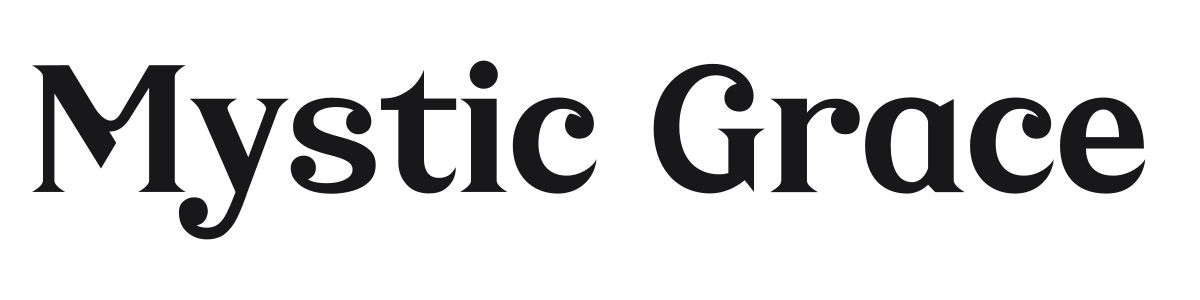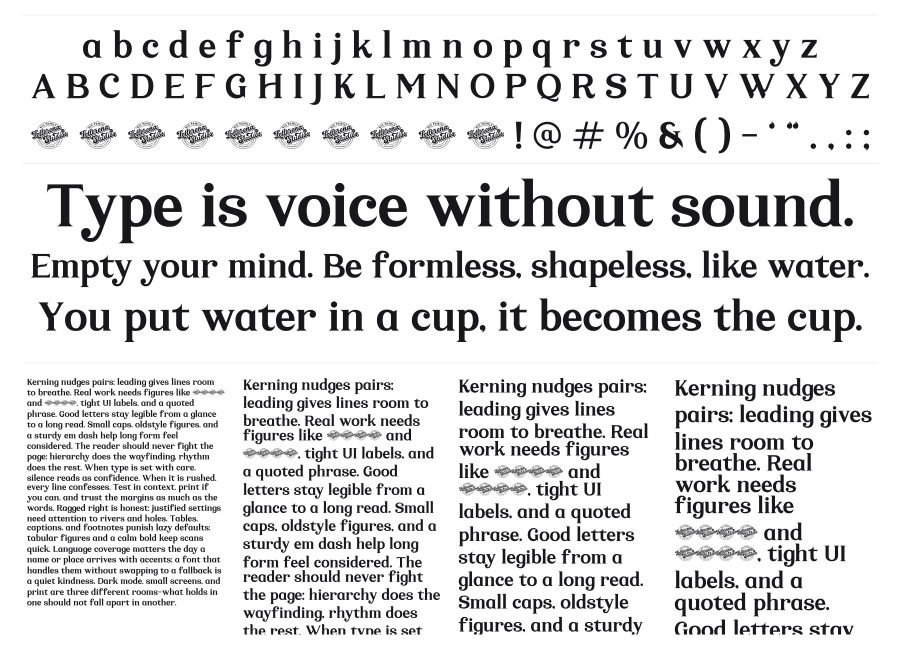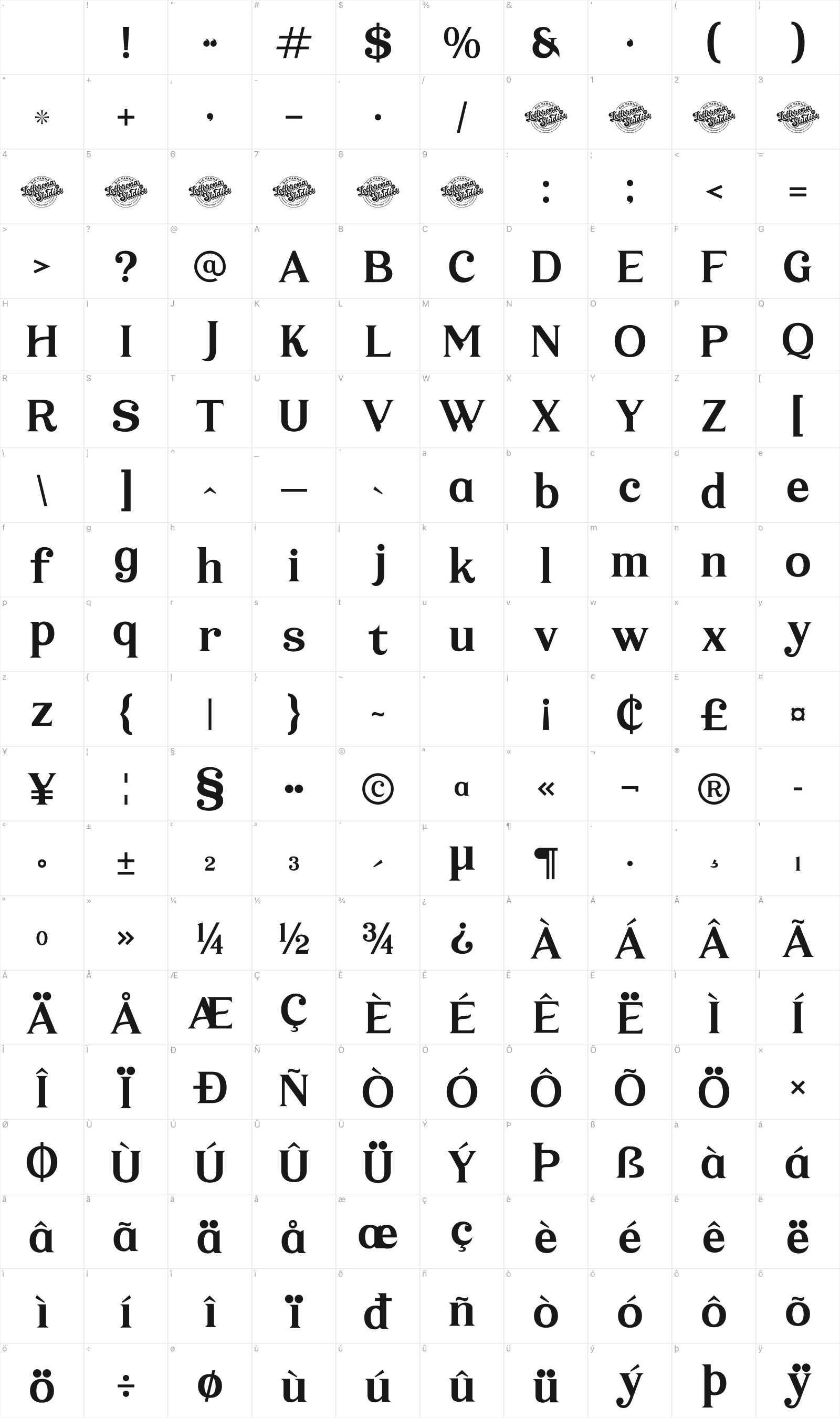
Mystic Grace
Mystic Grace is a bold contemporary serif with high stroke contrast and a polished, confident weight. The thick stems and delicate hairlines create a classic tension that reads as modern luxury rather than historical pastiche. Strong in headlines, logos, and editorial contexts where presence matters.